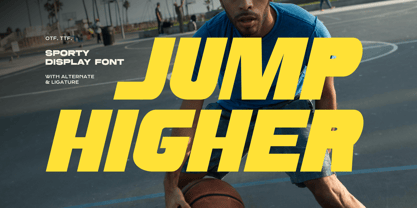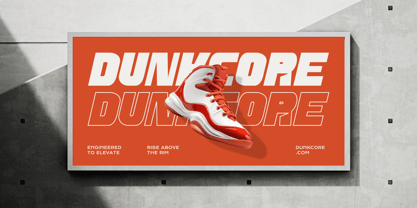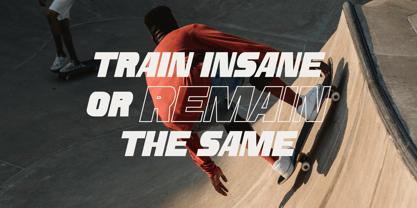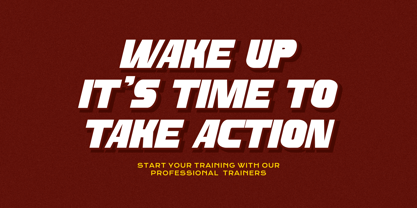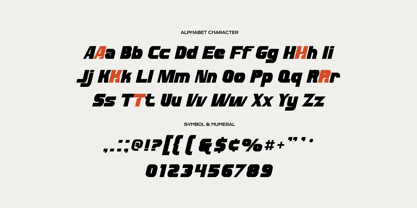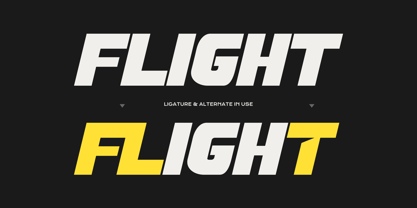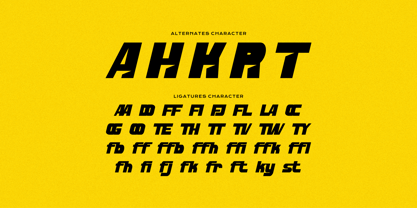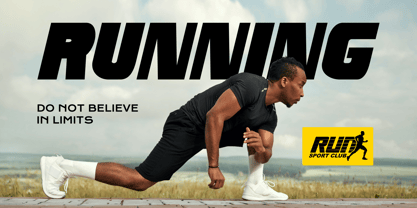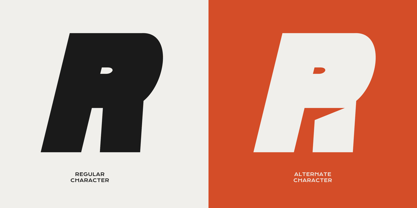
Jump Higher
Jump Higher is a high energy, sporty display typeface designed to convey movement, speed, and power. Its heavy weight and aggressive italic slant make it perfect for branding that needs to look "fast" and "strong." Unleash the energy of your next design project with this bold, athletic display font. Engineered for impact, this typeface features thick, slanted letterforms that embody the spirit of competitive sports and urban street style. The font stands out with its unique alternate characters and custom ligatures, allowing you to create distinctive, sharp edged typography. Whether you are designing for a professional sports team, a fitness brand, or modern streetwear, its commanding presence ensures your message is never missed. Bold Athletic Aesthetic: Heavy strokes and a sharp italicized slant for maximum momentum. Perfect for headlines, sports, jerseys, logos, posters, and esports branding.